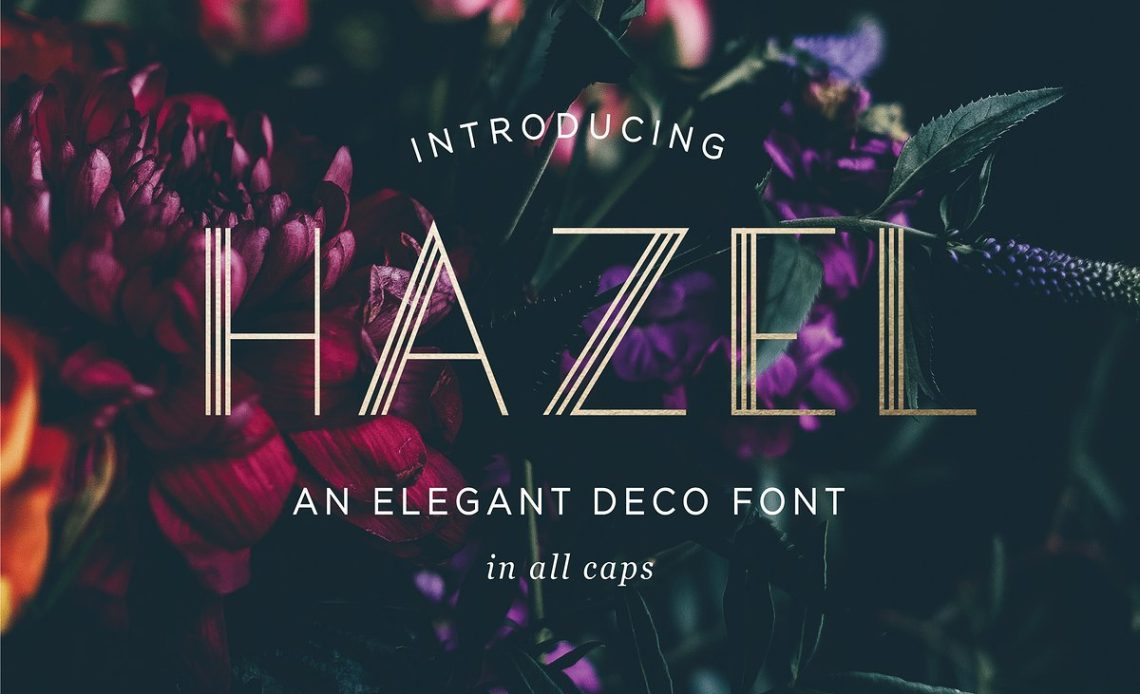
Introducing Hazel Deco, the stunning Art Deco font that will elevate any design project. Created by Leslie Ray, this font is perfect for those looking for the best fonts for weddings.
With its elegant all-caps design, Hazel Deco is versatile and suitable for a range of design purposes, including wedding invitations, branding, stationery, blog design, custom art, custom stamps, custom embossers, and more.